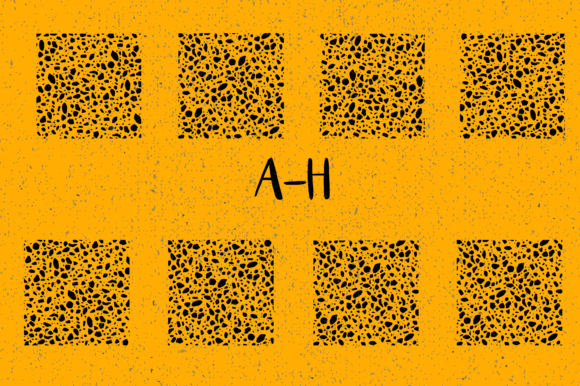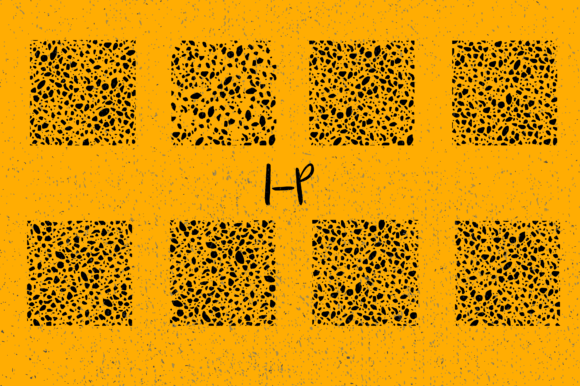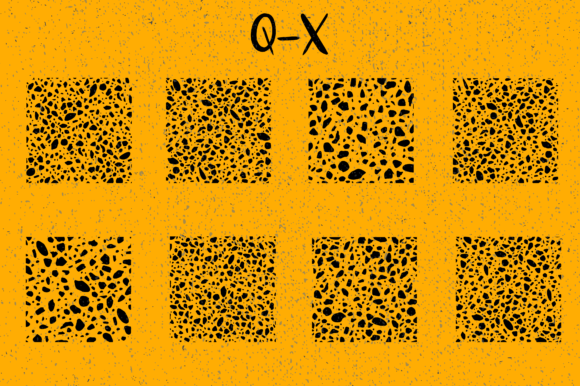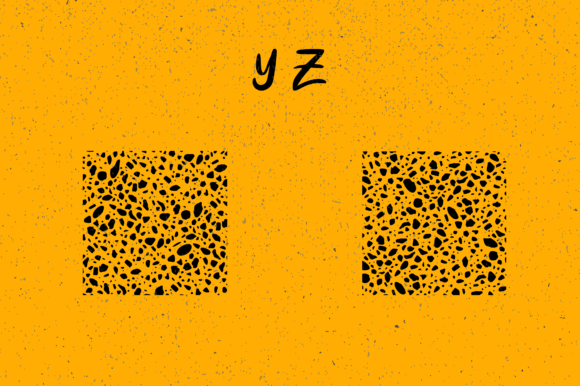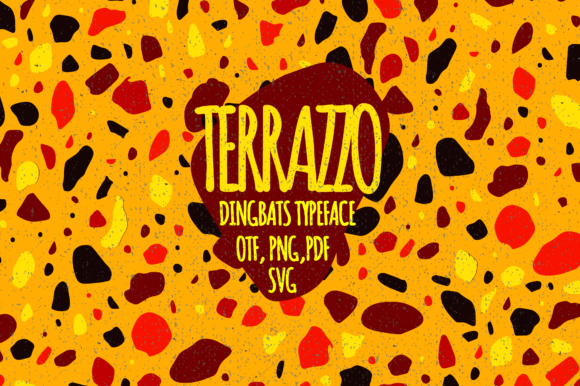
Terrazzo 1.0 Font
About Terrazzo 1.0 Font
Terrazzo 1.0 is indeed a cool and interestingly designed dingbats font that can add a unique and visually appealing touch to your designs. With its distinctive style inspired by the terrazzo flooring technique, this font can make your posters, flyers, or prints stand out.
The Terrazzo 1.0 font draws inspiration from the popular terrazzo design trend, characterized by colorful and speckled patterns typically used in flooring and interior design. By incorporating these unique elements into a dingbats font, Terrazzo 1.0 offers a creative and eye-catching option for your design projects.
The speckled and textured appearance of the Terrazzo 1.0 font can bring a sense of depth and visual interest to your designs. Whether you’re creating a poster for an event, a flyer for a product launch, or a print for home decor, this font can add a touch of uniqueness and creativity.
One of the advantages of using Terrazzo 1.0 is its versatility. The various symbols and glyphs in the font can be combined, resized, and arranged to create custom compositions that suit your design needs. You can experiment with different patterns, shapes, and color combinations to create visually stunning layouts.
Apart from posters, flyers, and prints, Terrazzo 1.0 can also be effectively used in digital designs, social media graphics, packaging, and more. Its textured and vibrant style can help your designs grab attention and leave a lasting impression on your audience.
When using Terrazzo 1.0, consider the overall design aesthetics and choose complementary colors and elements that work well with the terrazzo-inspired patterns. Play with different layouts and arrangements to find the most visually pleasing compositions.
In summary, Terrazzo 1.0 is a cool and interestingly designed dingbats font that can elevate your posters, flyers, prints, and other design projects. Its distinctive terrazzo-inspired style offers endless possibilities for creating visually stunning and unique compositions. So, unleash your creativity and explore the endless possibilities that Terrazzo 1.0 has to offer!